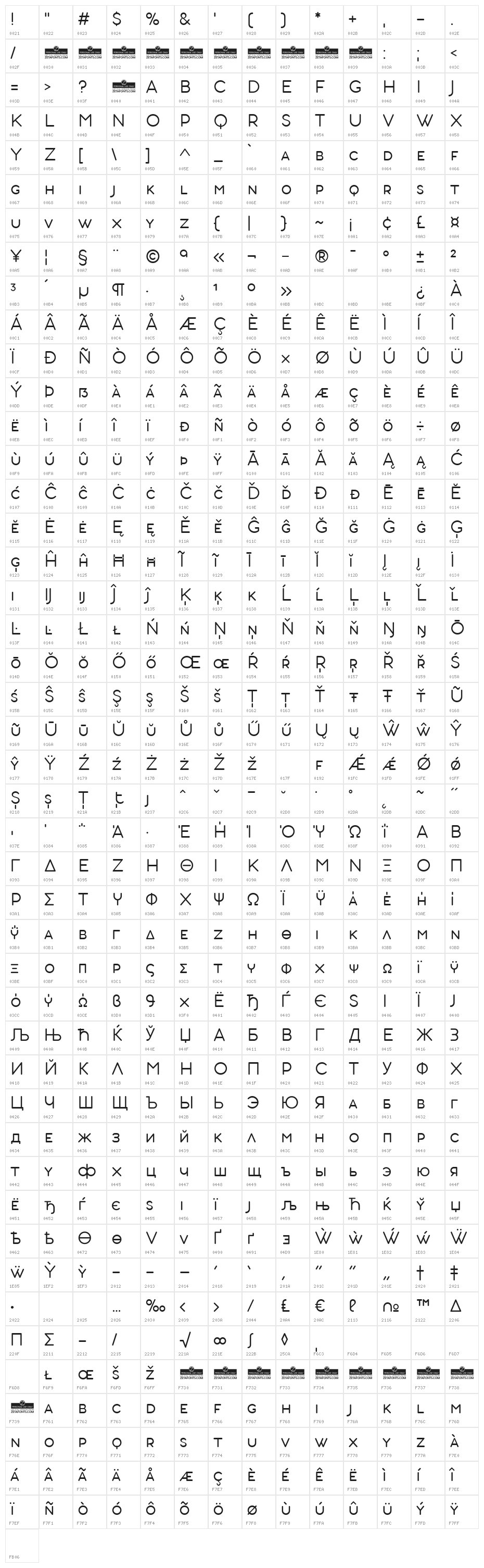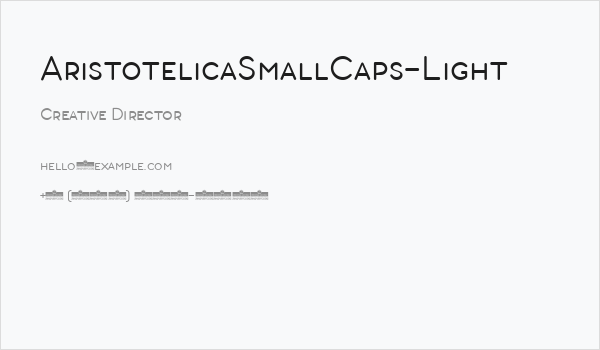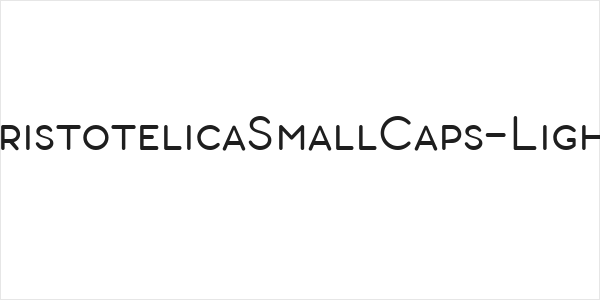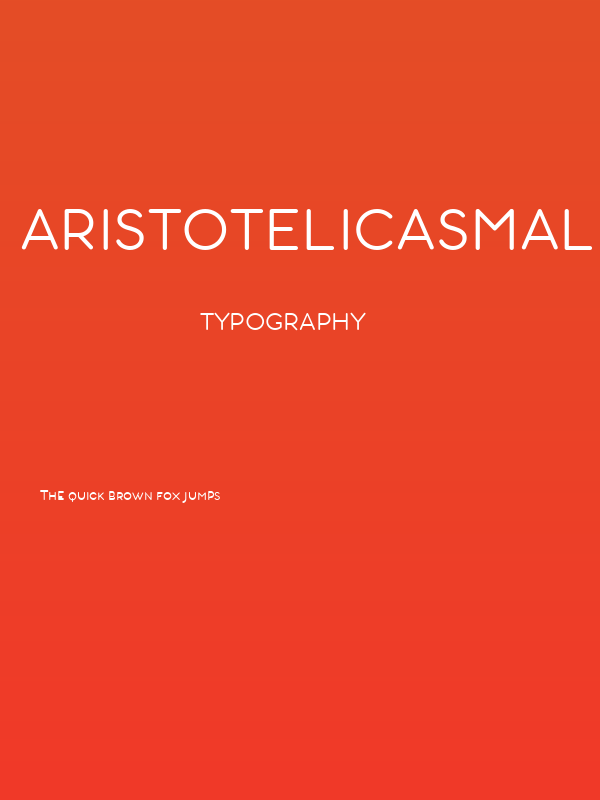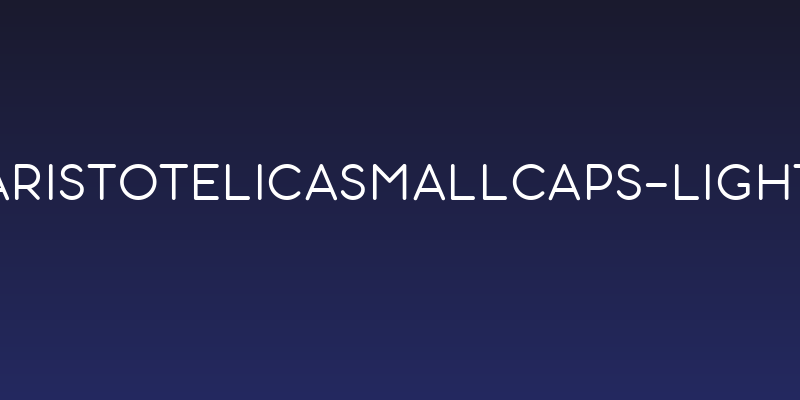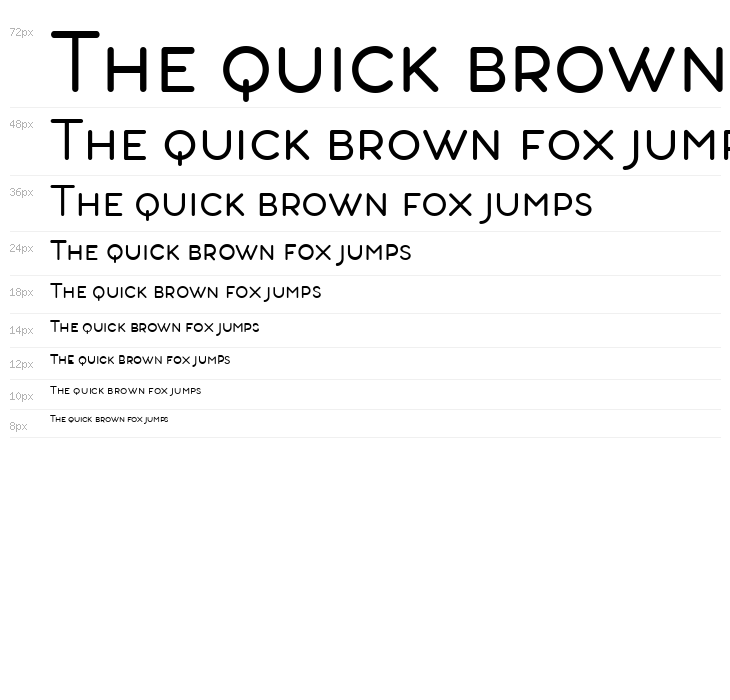
AristotelicaSmallCaps-Light Font
AristotelicaSmallCaps-Light Description
This font features a clean and modern design with a geometric sans-serif style. The characters are uniform in width, contributing to a balanced and harmonious appearance. The uppercase letters are prominent, with a slightly rounded finish that adds a touch of softness to the overall look. The lowercase letters maintain the same geometric consistency, ensuring readability and elegance. The numerals and special characters are designed to match the overall aesthetic, providing a cohesive visual experience. This font is versatile, suitable for both digital and print media, and can be used in a variety of design contexts.